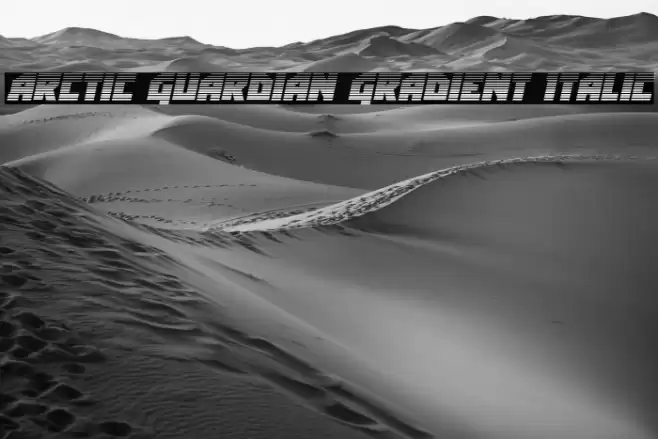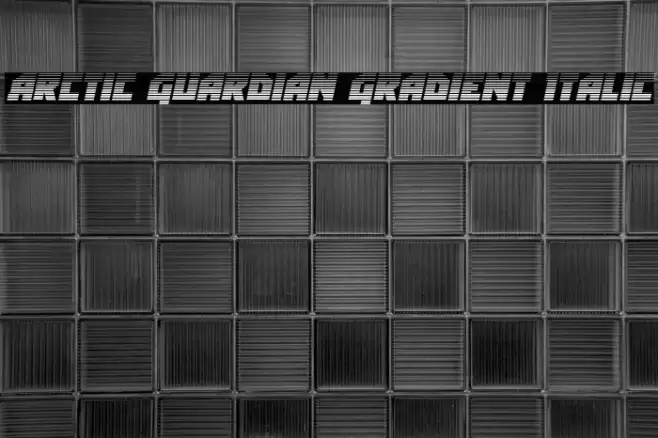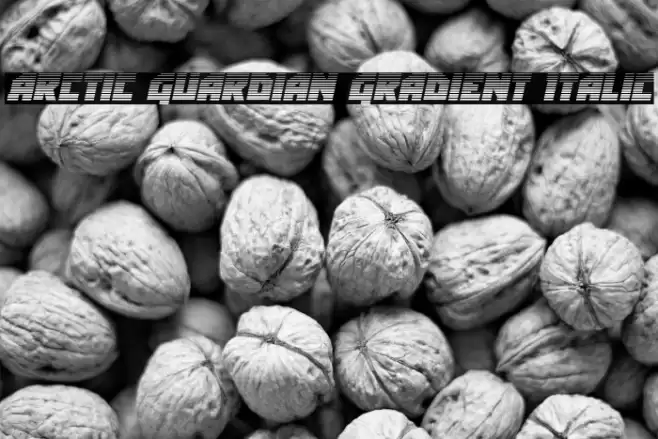
Arctic Guardian Gradient Italic Font
Arctic Guardian Gradient Italic Description
This font features a bold, futuristic design with a distinct gradient effect created by horizontal lines. The italicized style adds a dynamic and forward-leaning appearance, enhancing its modern aesthetic. Each character is composed of multiple parallel lines, giving a sense of movement and speed. The uppercase and lowercase letters maintain a consistent style, while numbers and special characters are designed to match the overall theme. The font's unique structure makes it stand out, suitable for projects that require a strong visual impact.
A bold, italicized font with a futuristic gradient effect created by horizontal lines from Uncategorized fonts.
- Proposed Projects: Ideal for sci-fi themed posters, video game titles, futuristic branding, and dynamic logo designs.
- Overall Style: Futuristic, Dynamic